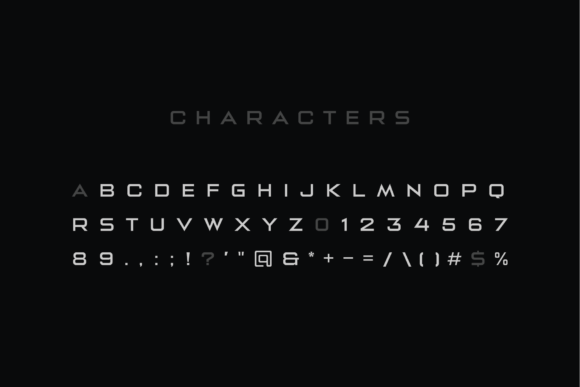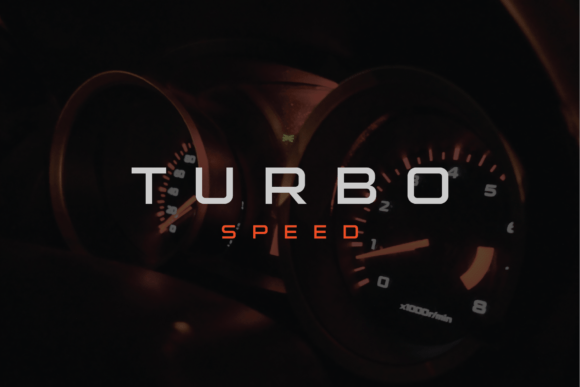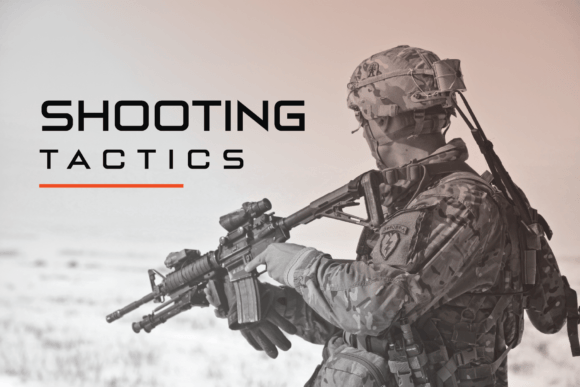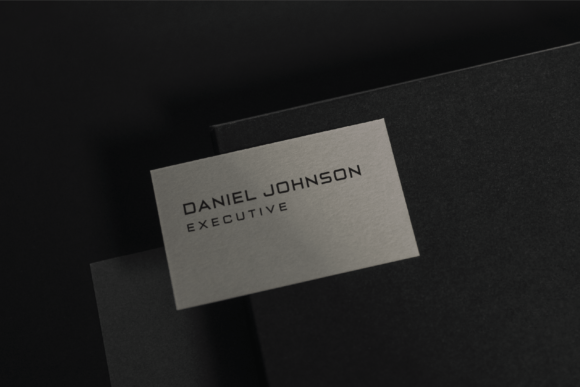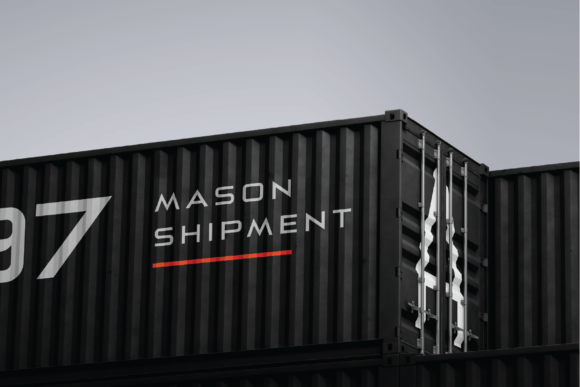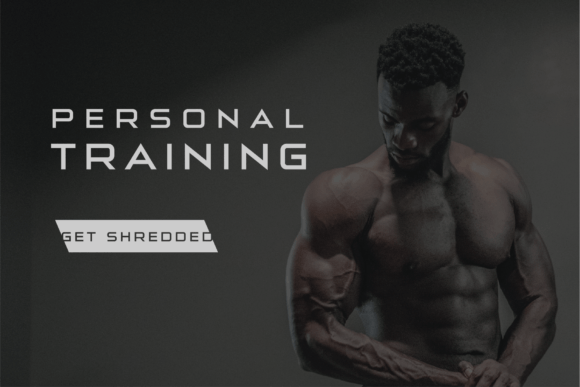
Introducing Anzor Font: The Ultimate Futuristic Wide Font for Bold Designs
In the world of design, typography plays a crucial role in conveying messages, expressing creativity, and capturing attention. When it comes to creating bold and striking designs, the right font can make all the difference. This is where Anzor Font comes into play – a futuristic wide font that is taking the design world by storm. With its bold, extended characters and sharp edges, Anzor Font is the perfect choice for designers and crafters looking to add an extra layer of boldness to their projects.
The Unique Features of Anzor Font
Anzor Font boasts a range of unique features that set it apart from other fonts. Its bold, extended characters are designed to make a statement, while its sharp edges add a touch of edginess to any design. The font’s minimal yet masculine appearance makes it an excellent choice for a wide range of projects, from branding and social media posts to banners, posters, and headers.
One of the standout features of Anzor Font is its versatility. Whether you’re working on a digital project or a print-based design, this font is sure to deliver. Its clean lines and geometric shape make it easy to read, even at smaller sizes, while its bold weight ensures that your message gets noticed.
Perfect for a Range of Design Projects
Anzor Font is an incredibly versatile font that can be used for a wide range of design projects. Here are just a few examples of how you can use this font to elevate your designs:
- Branding: Use Anzor Font to create bold and memorable logos that make a lasting impression on your target audience.
- Social Media Posts: Add a touch of edginess to your social media posts with Anzor Font’s sharp edges and bold characters.
- Banners: Create eye-catching banners that grab attention with Anzor Font’s extended characters and bold weight.
- Posters: Use Anzor Font to create striking posters that convey your message with confidence and style.
- Headers: Add a touch of sophistication to your headers with Anzor Font’s clean lines and geometric shape.
Why Choose Anzor Font?
So why should you choose Anzor Font for your next design project? Here are just a few reasons why this font stands out from the crowd:
- Unique Design: Anzor Font’s bold, extended characters and sharp edges make it a truly unique font that will set your designs apart.
- Versatility: This font can be used for a wide range of design projects, from digital to print-based designs.
- Easy to Read: Despite its bold weight, Anzor Font is easy to read, even at smaller sizes.
- Masculine Appearance: Add a touch of masculinity to your designs with Anzor Font’s clean lines and geometric shape.
Here are a few tips for getting the most out of Anzor Font:
- Experiment with Different Sizes: Anzor Font looks great at a range of sizes, from small to large.
- Play with Color: Try pairing Anzor Font with different colors to create a unique and eye-catching design.
- Use it with Other Fonts: Anzor Font pairs well with a range of other fonts, so don’t be afraid to experiment with different combinations.
In conclusion, Anzor Font is a game-changing font that is sure to take your designs to the next level. With its bold, extended characters and sharp edges, this font is perfect for designers and crafters looking to create striking and memorable designs. Whether you’re working on a branding project, social media post, banner, poster, or header, Anzor Font is the perfect choice. So why wait? Download Anzor Font today and start creating bold and eye-catching designs that demand attention.